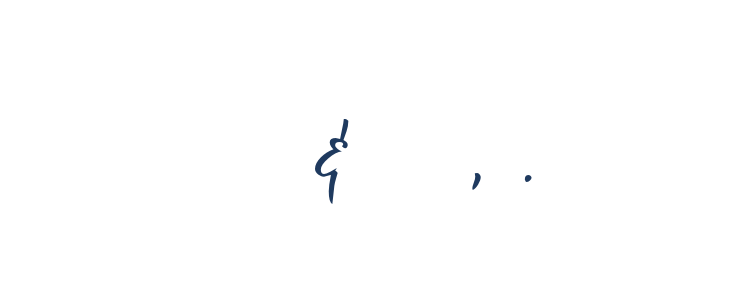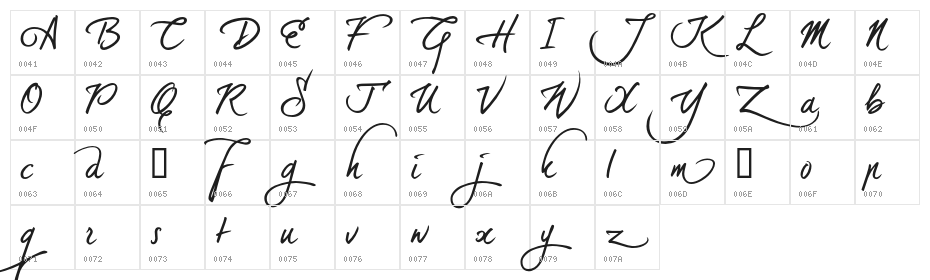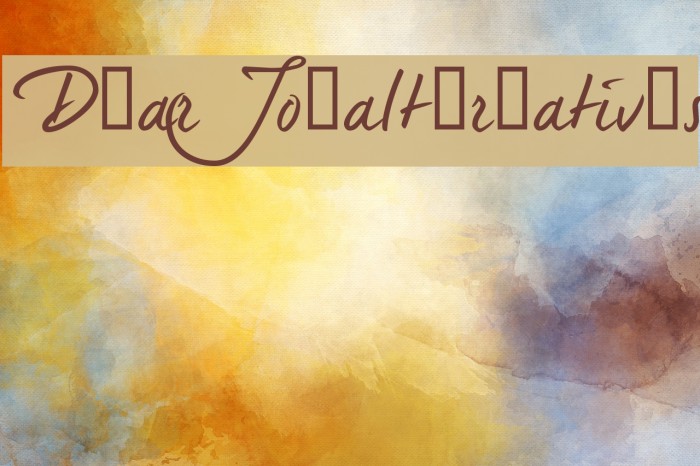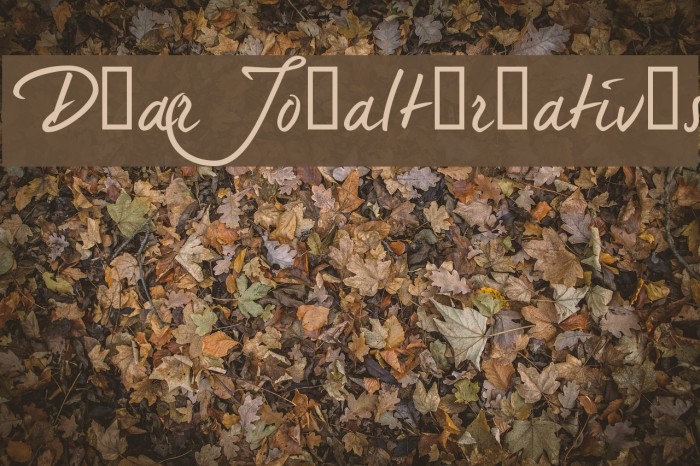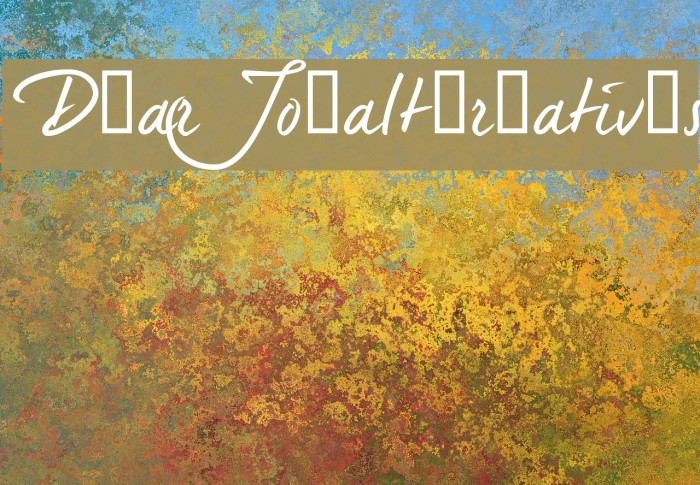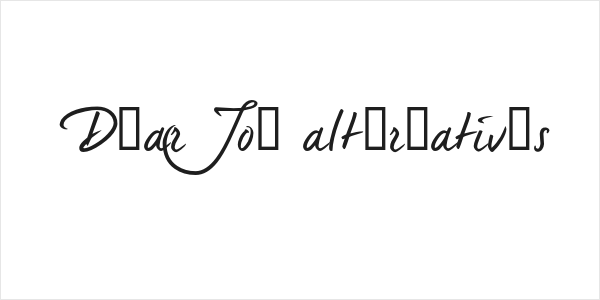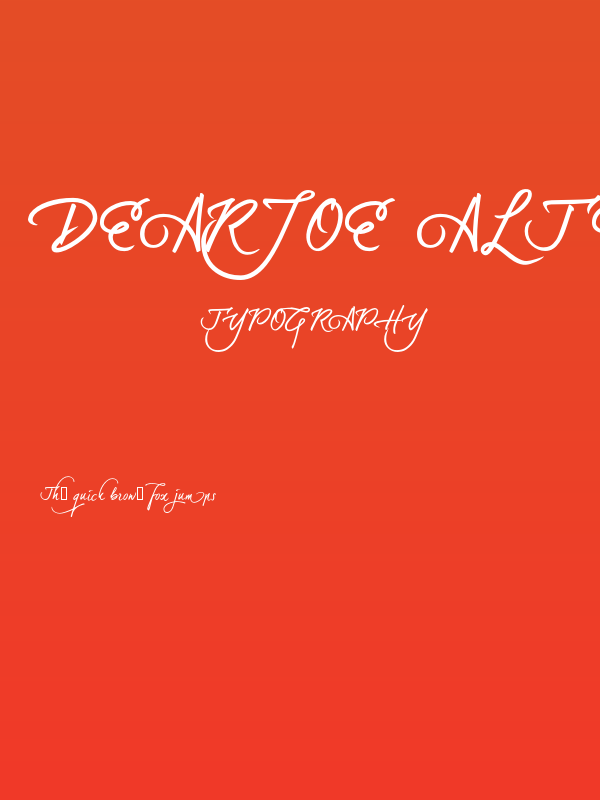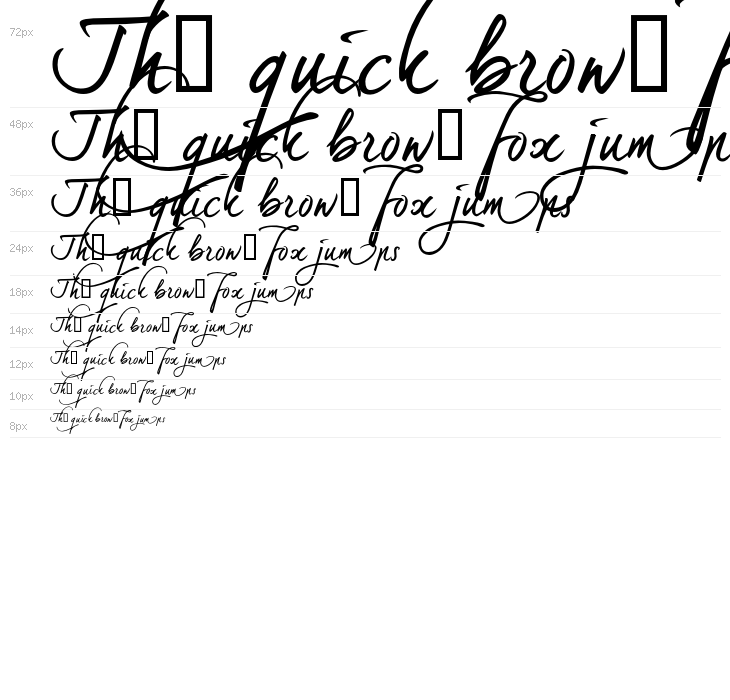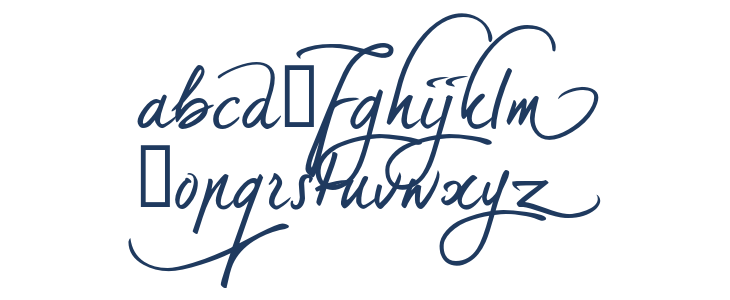
DearJoe5alternatives Font
DearJoe5alternatives Description
This font features an elegant and flowing script style, characterized by its intricate and decorative letterforms. The uppercase letters exhibit a graceful, sweeping motion with extended flourishes, while the lowercase letters maintain a consistent, cursive flow. The overall design is reminiscent of classic calligraphy, with a modern twist that adds a touch of sophistication. The numerals and special characters are crafted with the same attention to detail, ensuring a cohesive look across all elements. This font is ideal for projects that require a touch of elegance and refinement.
| Overall Style | Elegant, Decorative |
| Use Case | Logos, Invitations, Headlines |
| Proposed Projects | Wedding invitations, luxury branding, elegant stationery, and formal event programs. |